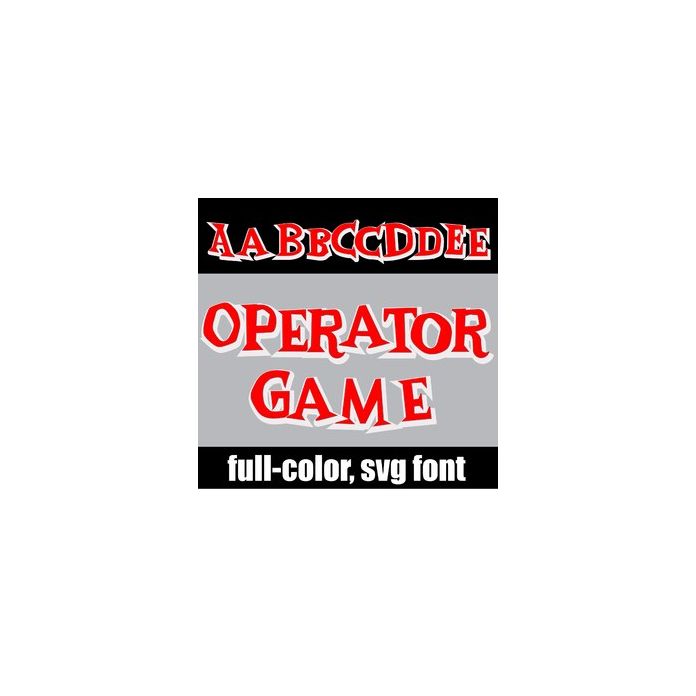
This full-color font features a whimsical font that's popular on a old-school board game. This font works best for titles, displays, posters and more. Please note color fonts will show as black in non compatible programs. This font type is compatible with Silhouette Studio.